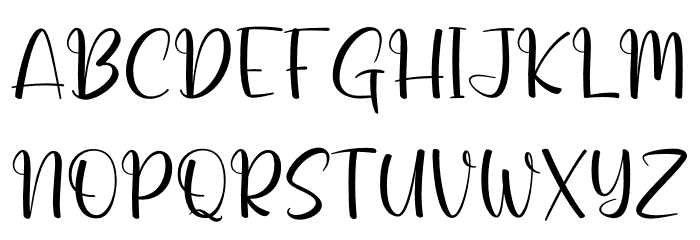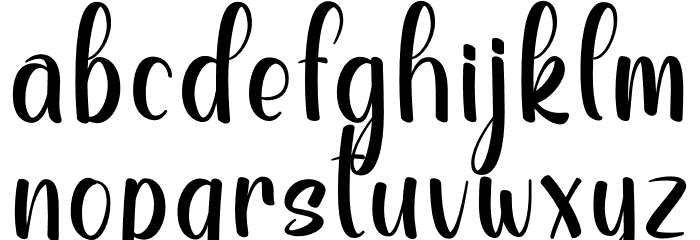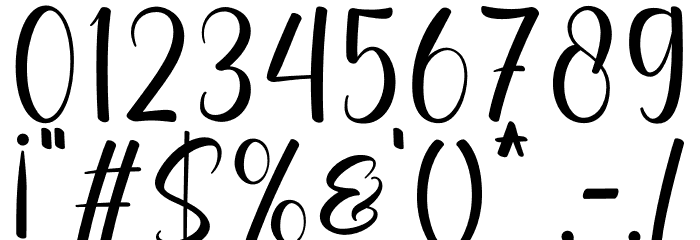
Good Vibe Font
A playful and energetic handwritten font with a casual, flowing style and varying stroke thickness.
Playful handwritten font with a casual style.
- Font: Good Vibe
- Proposed Projects: Greeting cards, invitations, playful branding.
- Category: Handwritten
- Overall Style: Casual, Playful
- Use Case: Headlines, Informal text, Creative projects